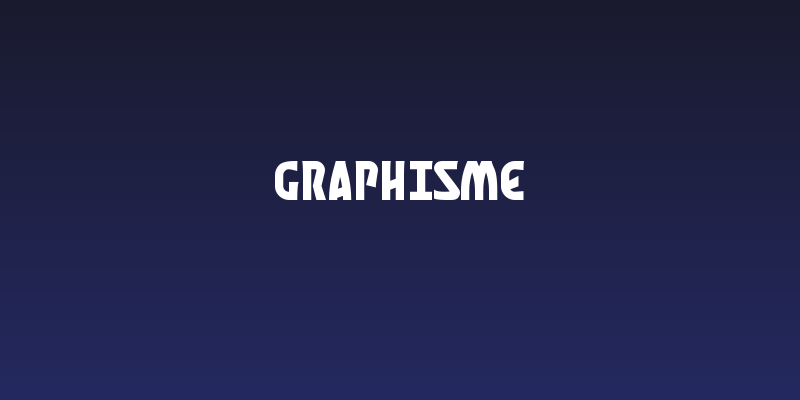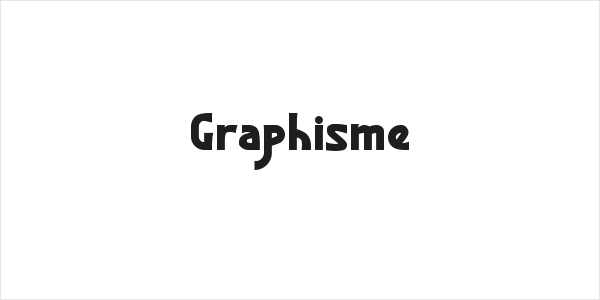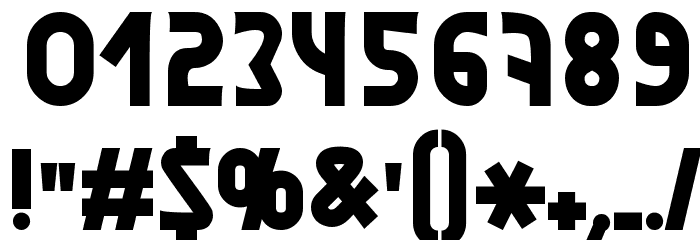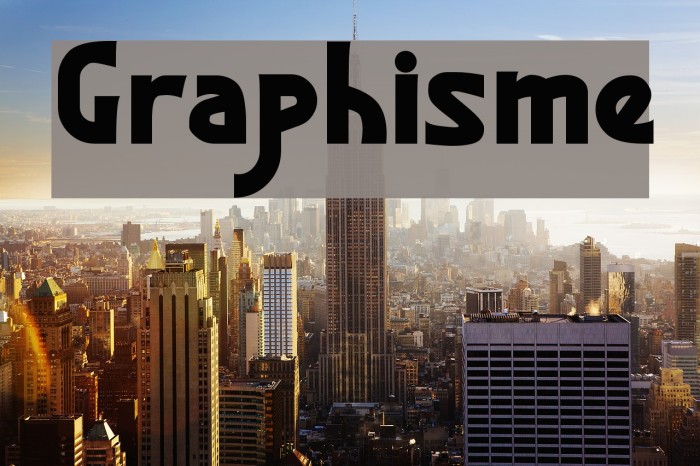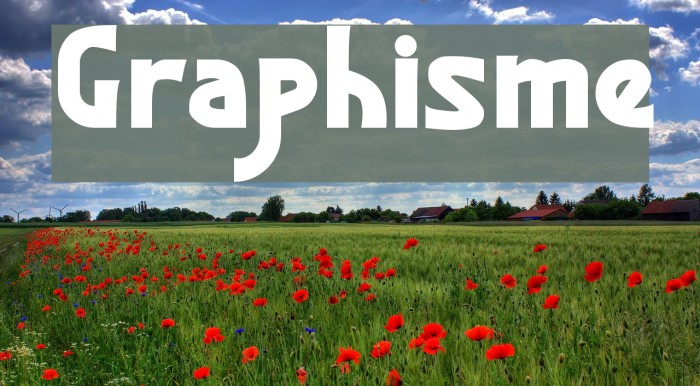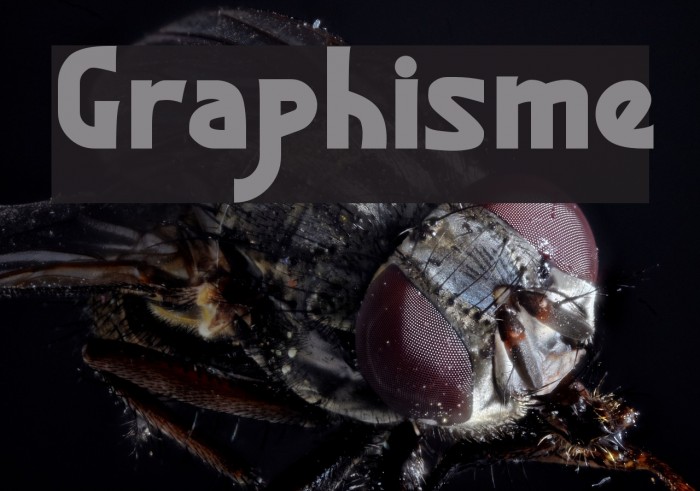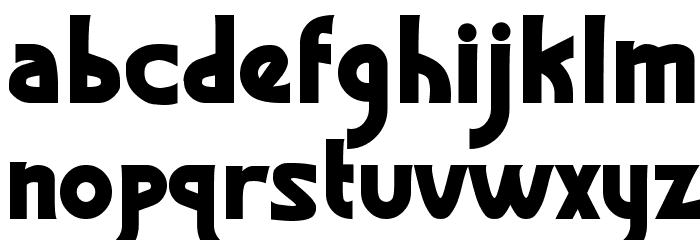
Graphisme Font
Graphisme Description
This font features bold, geometric letterforms with a distinctively modern and playful style. The uppercase letters are robust and angular, while the lowercase letters maintain a consistent weight and structure, offering a harmonious blend of curves and straight lines. The numerals are equally bold, ensuring readability and impact. Special characters are designed to match the overall aesthetic, providing a cohesive look across all glyphs. The font's strong presence makes it ideal for attention-grabbing designs.
| Proposed Projects | Ideal for posters, branding, headlines, and any design requiring a strong visual impact. |